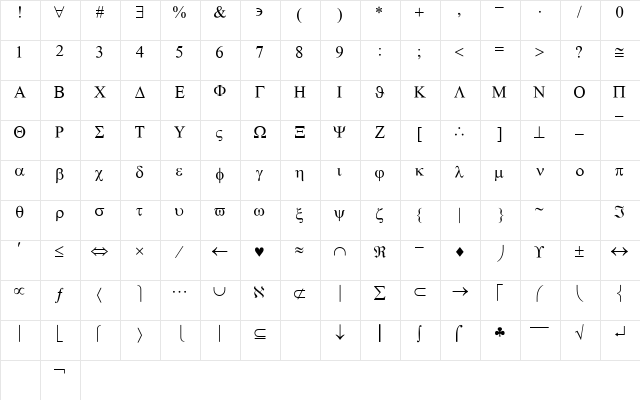
GedeaGrA Regular Font Preview
GedeaGrA Regular
Design Context for GedeaGrA Typeface
GedeaGrA takes a measured approach to typography — its balanced proportions and neutral character make it a reliable workhorse for both digital and print work.